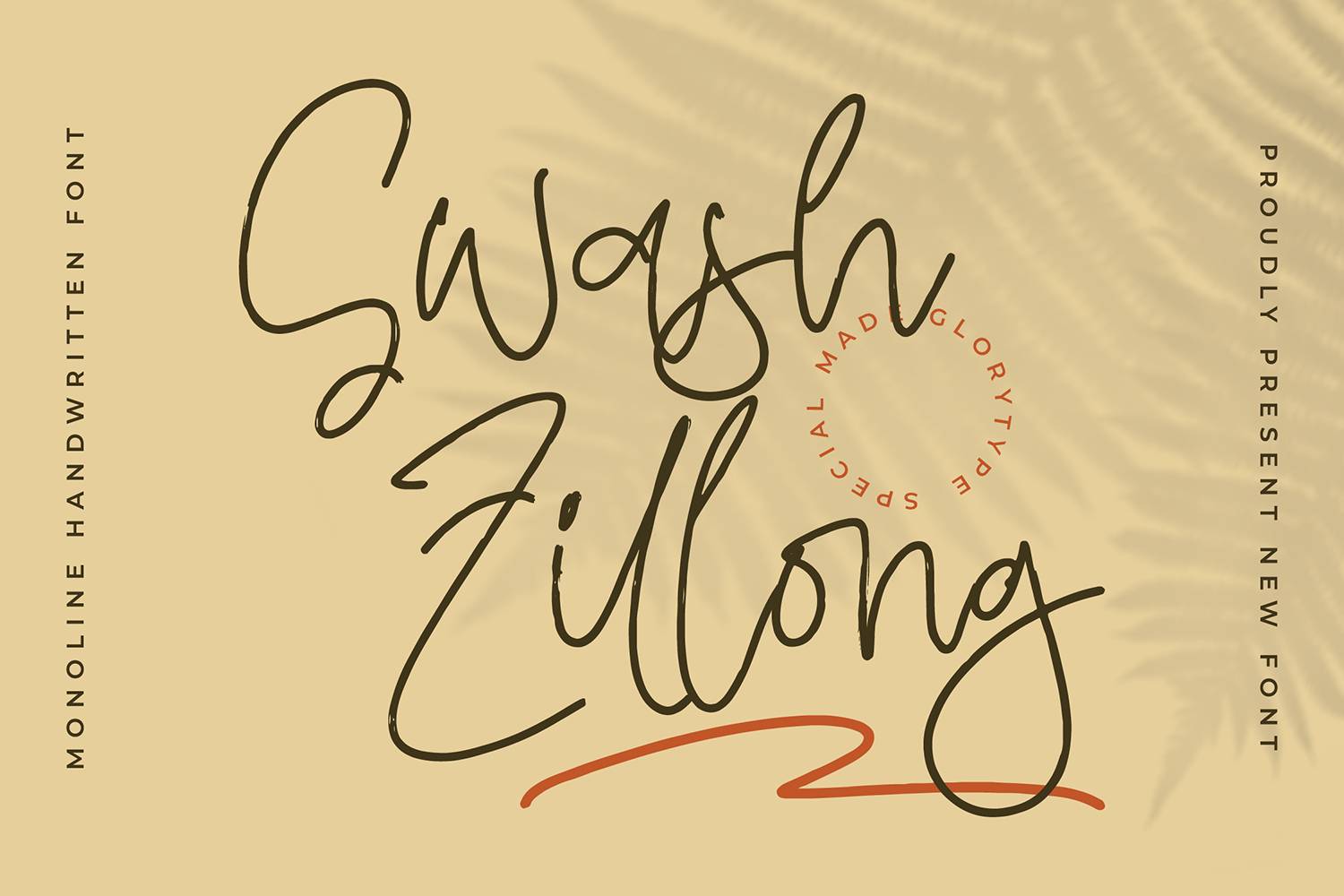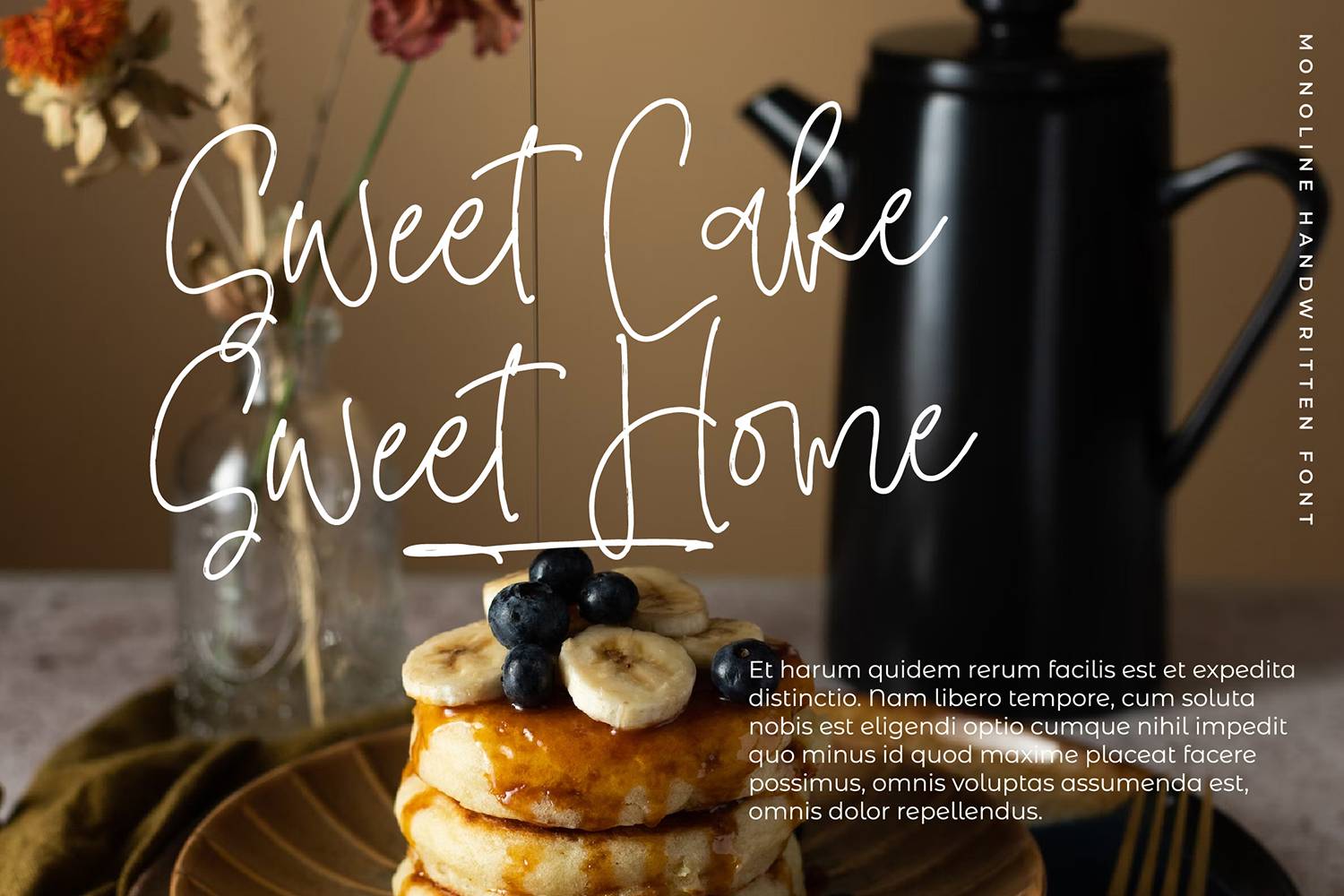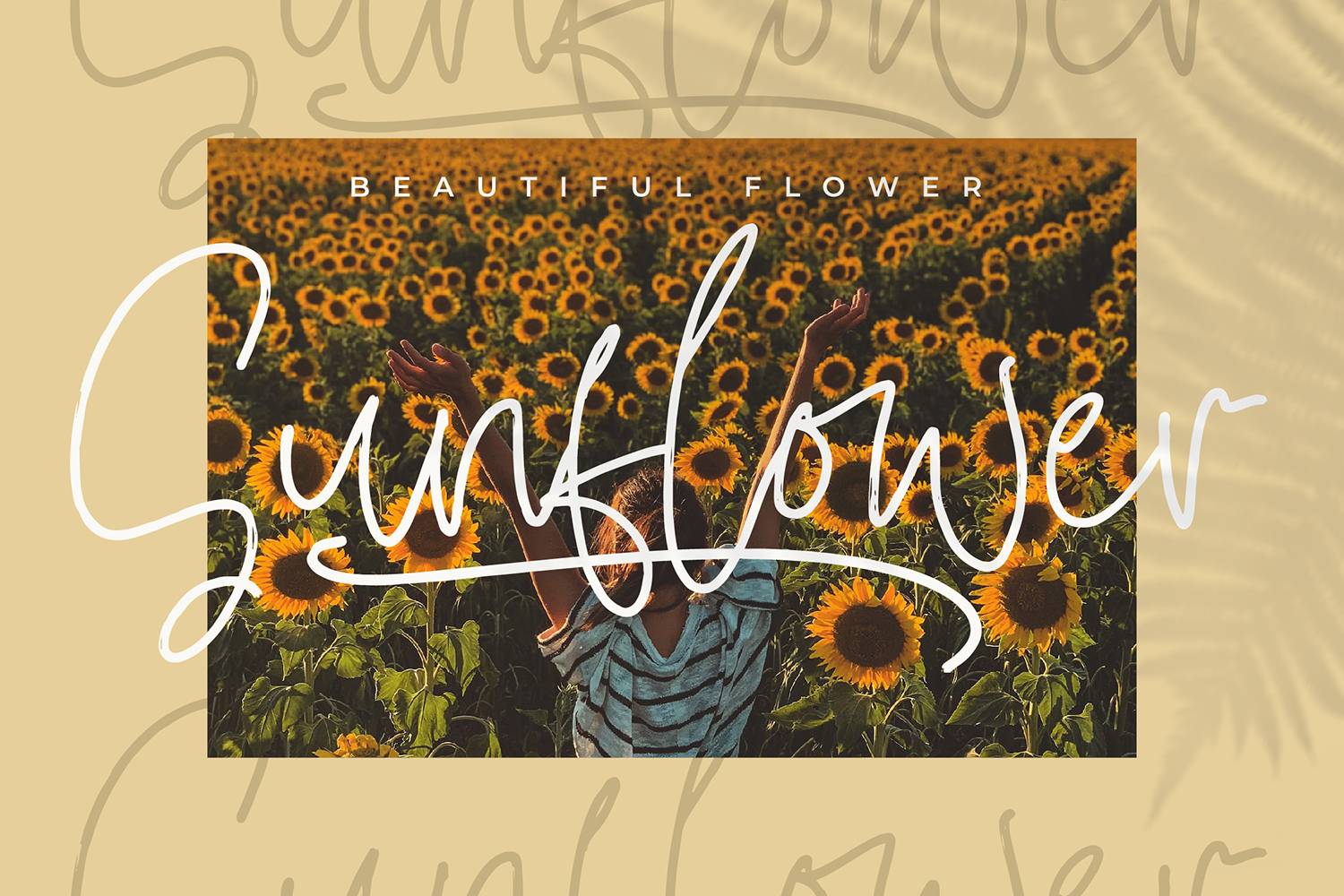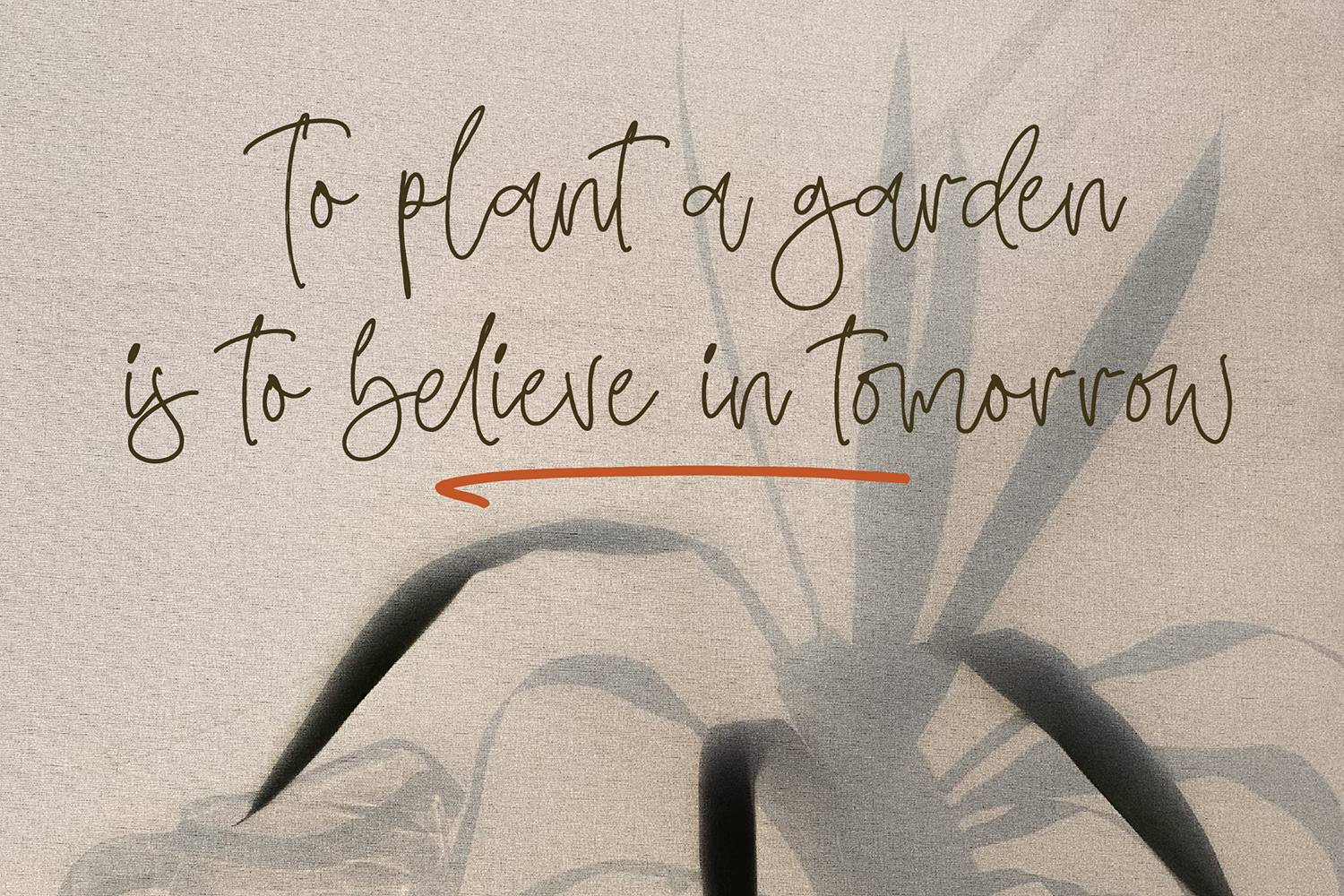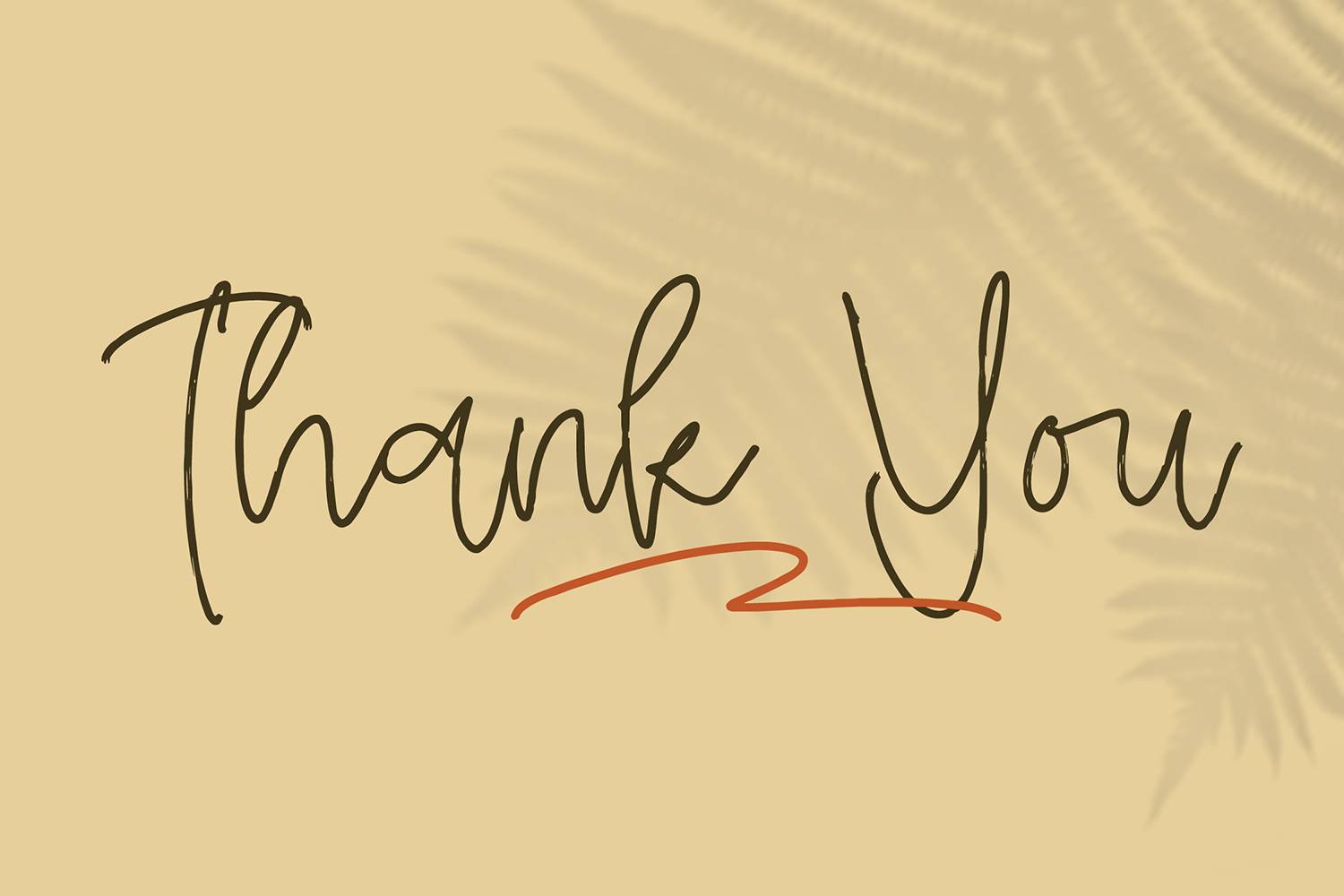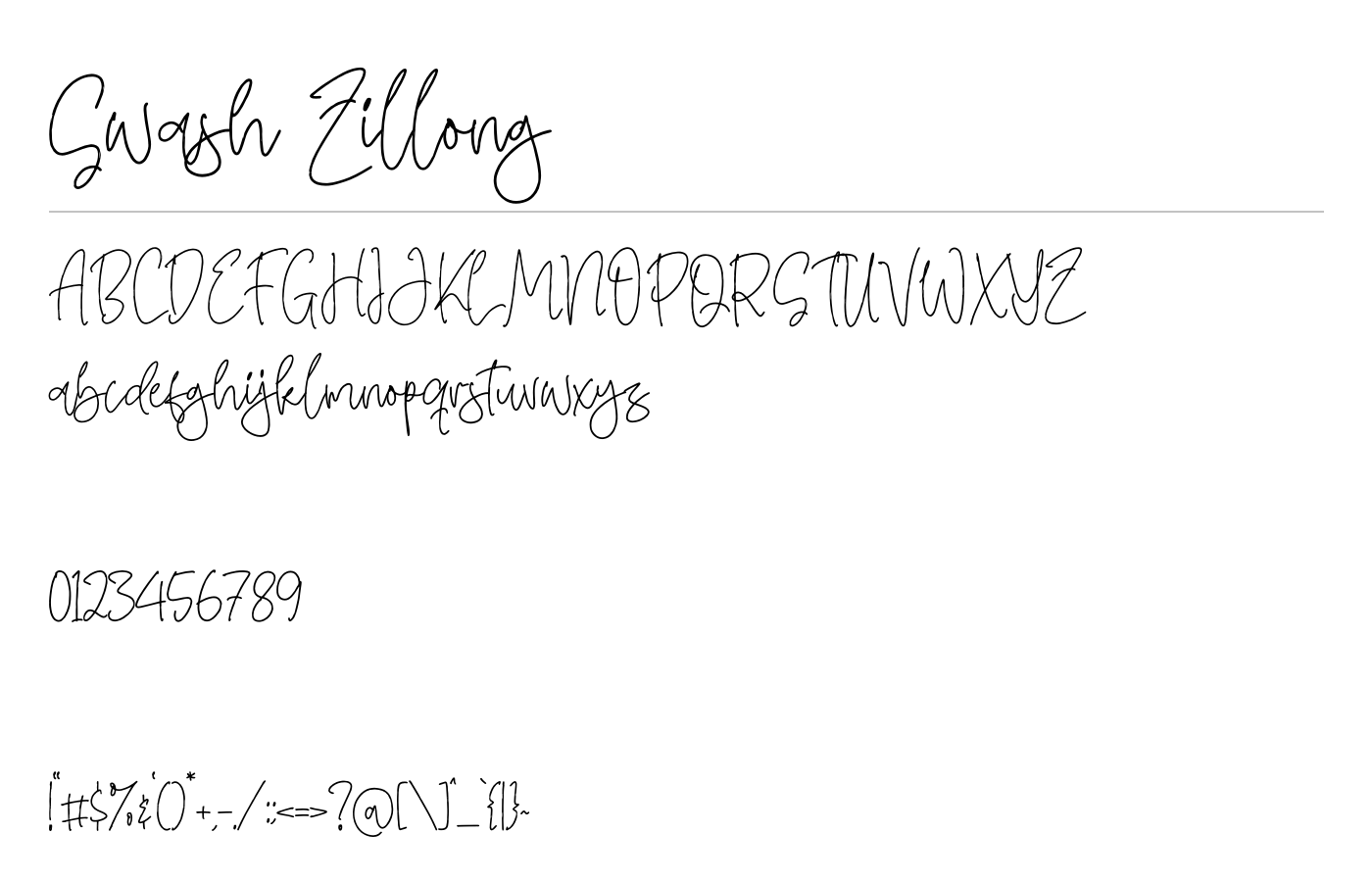
Swash Zillong is a delicate, hand-drawn script font with a light, airy feel that exudes personality and charm. Its thin, flowing lines and playful loops make it ideal for adding a personal, whimsical touch to designs, perfect for invitations, branding, and creative projects that seek a casual yet stylish vibe. This font works best in headlines and decorative uses where its unique, expressive character can truly stand out.
Swash Zillong Font
About Swash Zillong Font